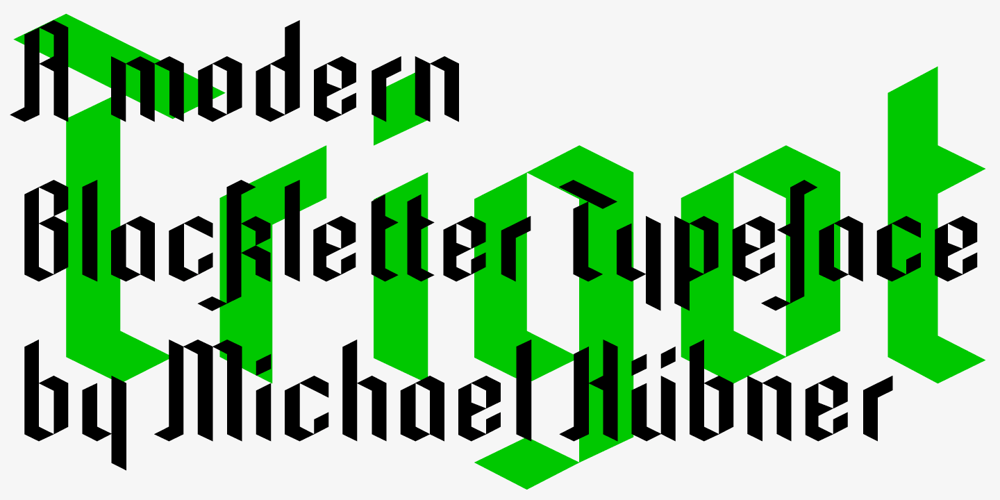
Trigot Font Family was designed by published by Volcano Type. Trigot contains 1 styles and family package options. Trigot is a modular typeface. Every form and every character is constructed from the basic geometric form of the triangle. The simple construction trigot resembles strongly is a gothic blackletter font. The letters are inspired by the ductus and forms of medieval typefaces and have a similar complex expression. The main singularity of Trigot lies in the strong contrast between clear geometry and the complex expression of a blackletter typeface. The name, “Trigot”, hints the gothic influence and the triangular modules. Trigot is a modern display font — it can be used for posters, striking visuals and titles but also for longer phrases and quotes.